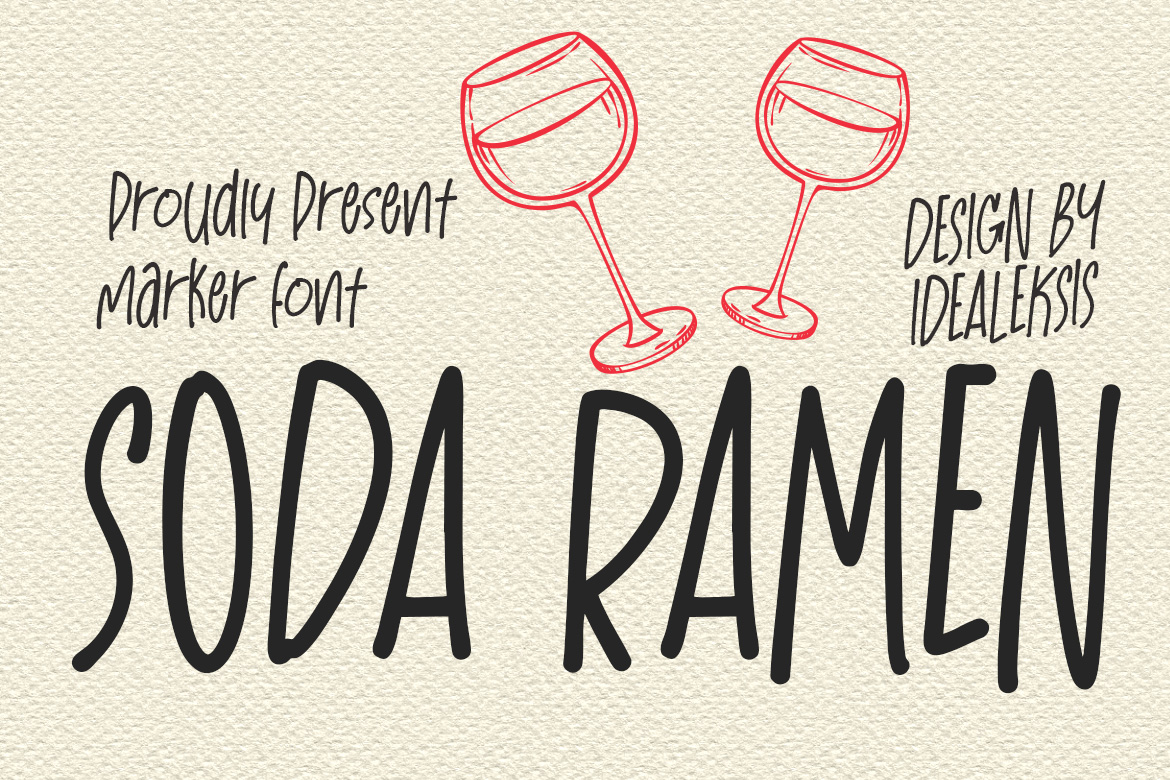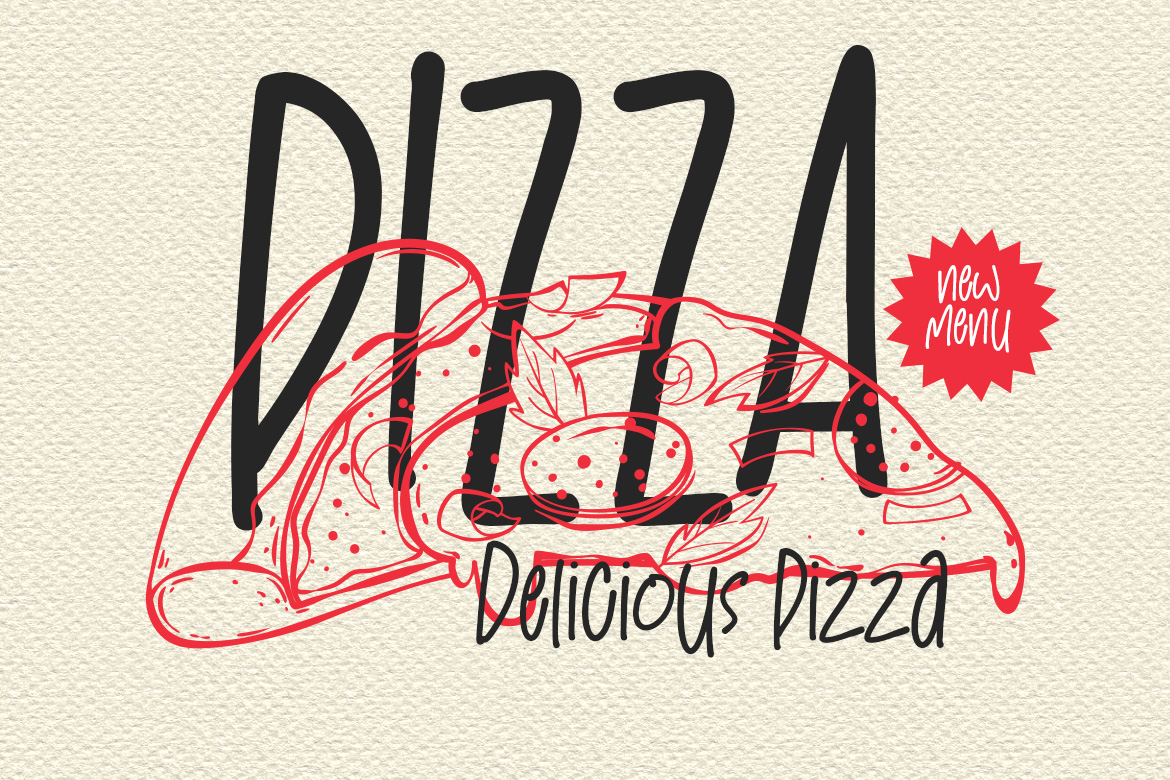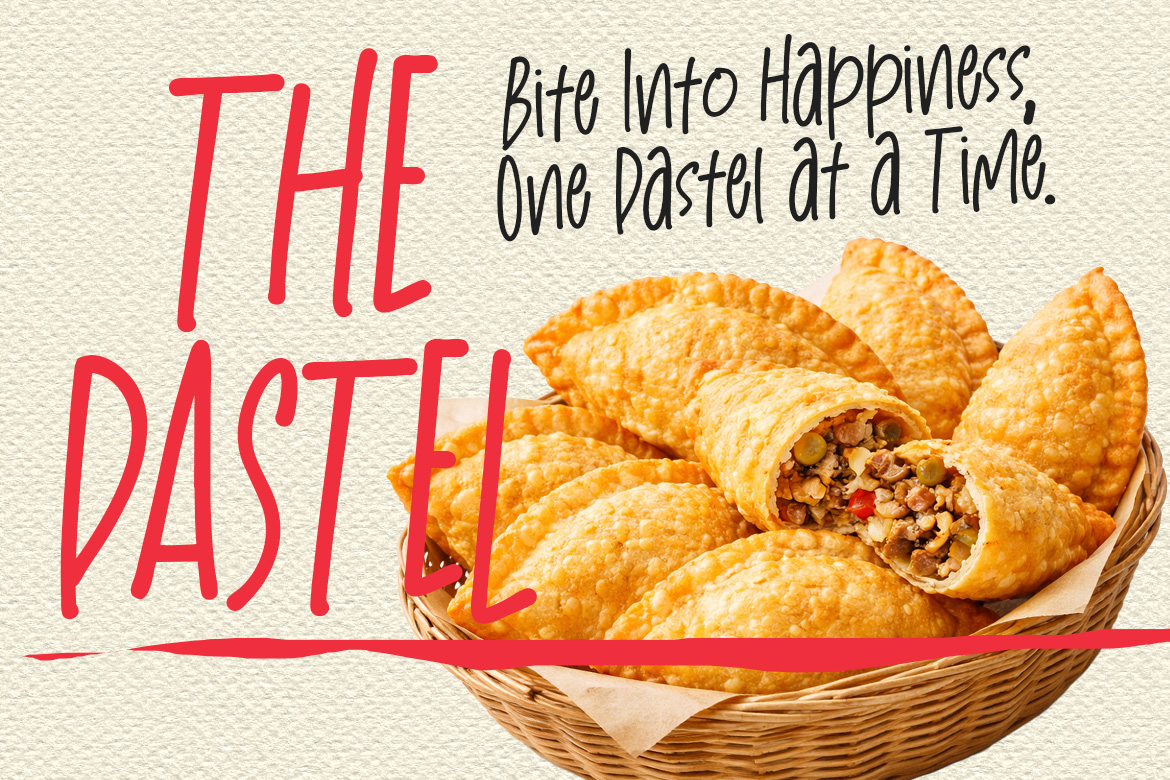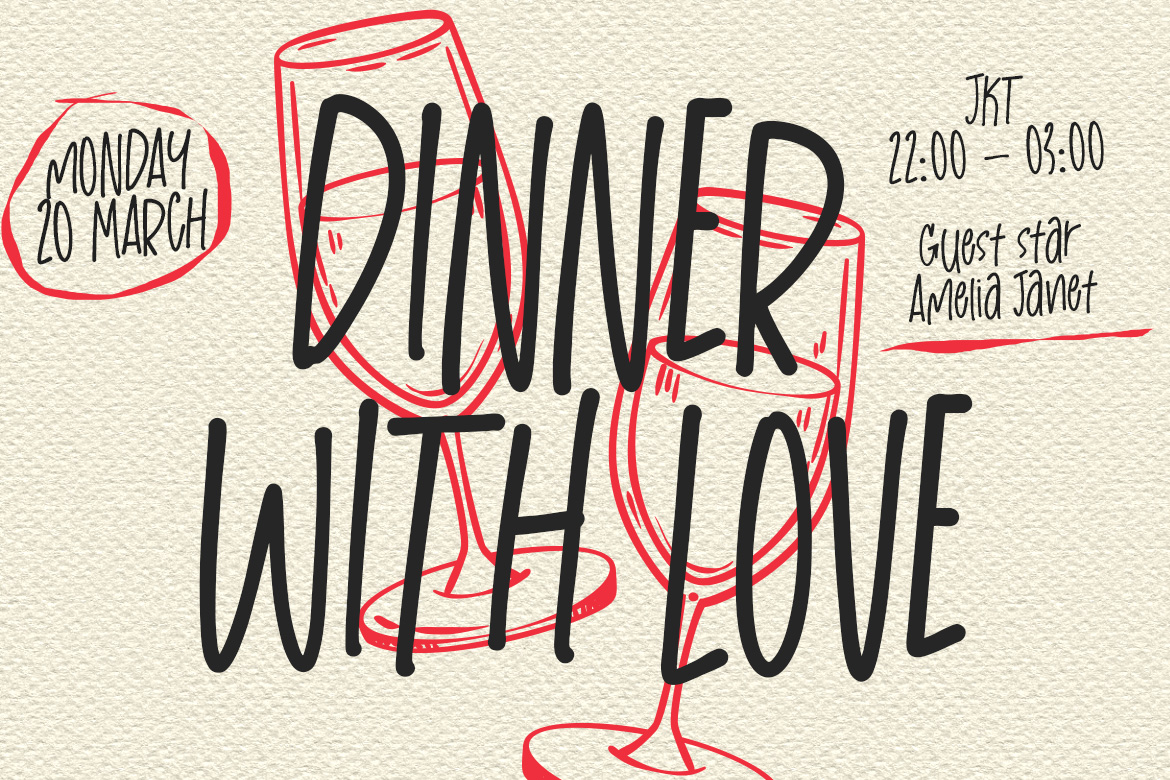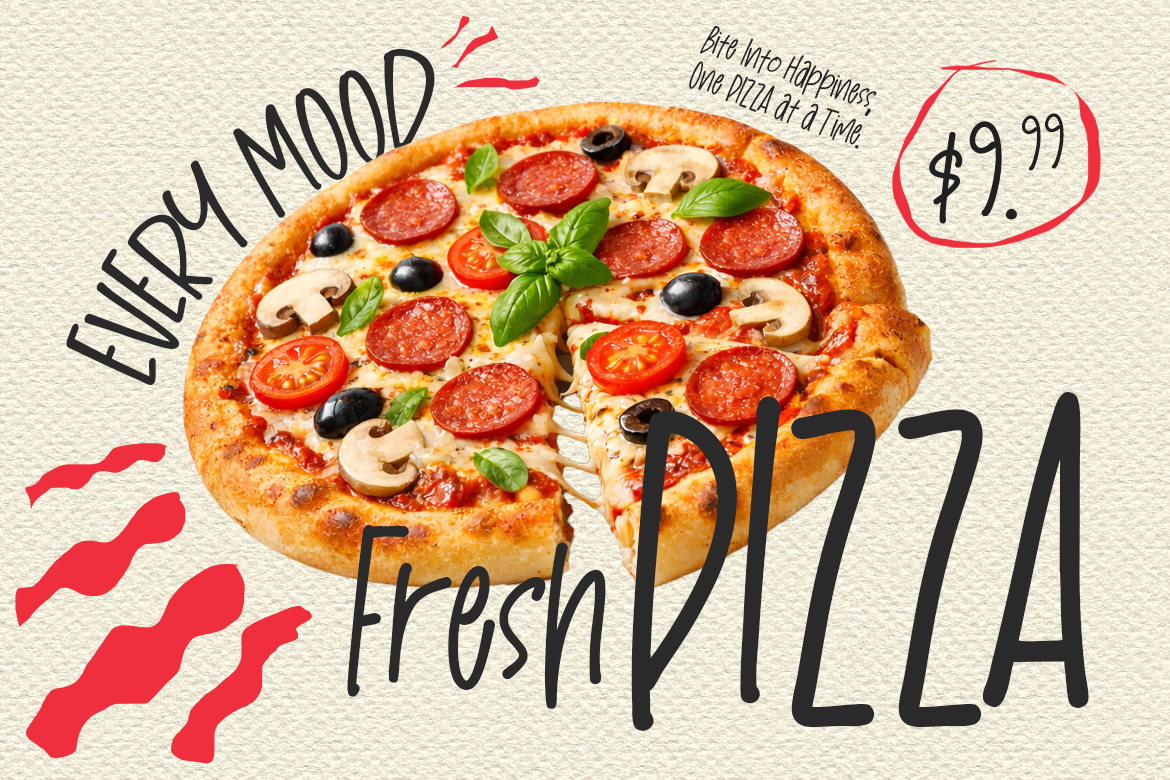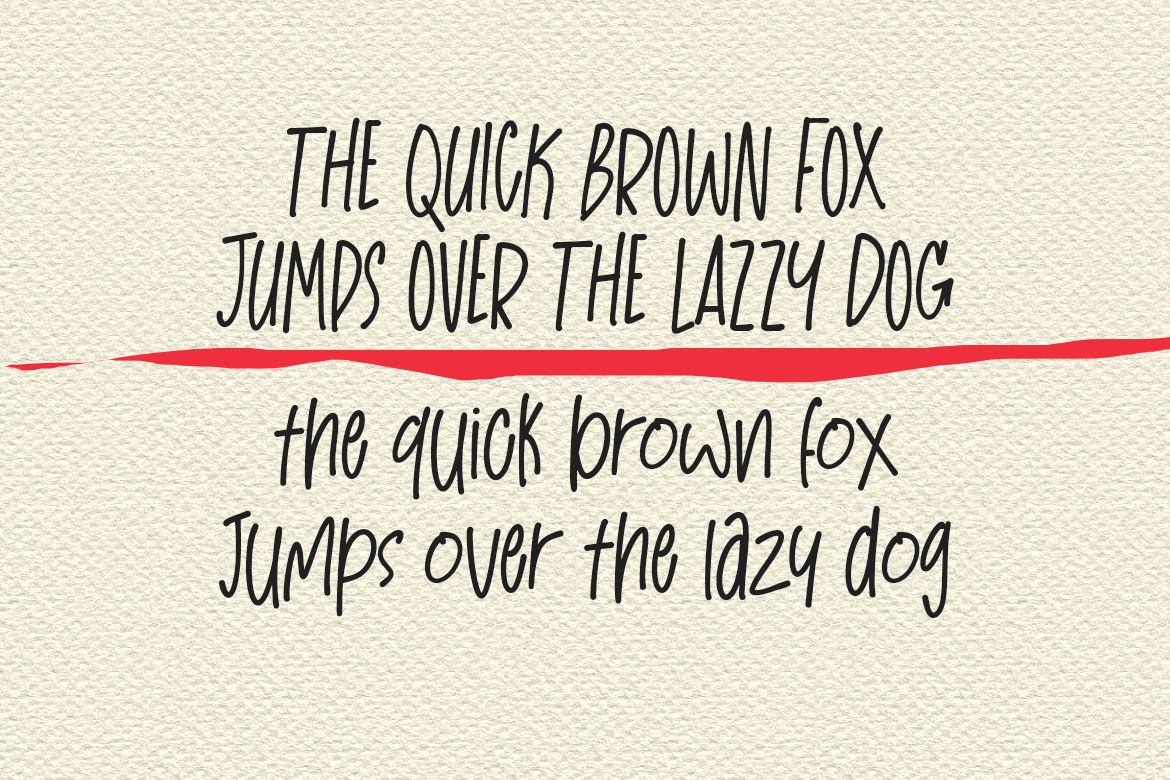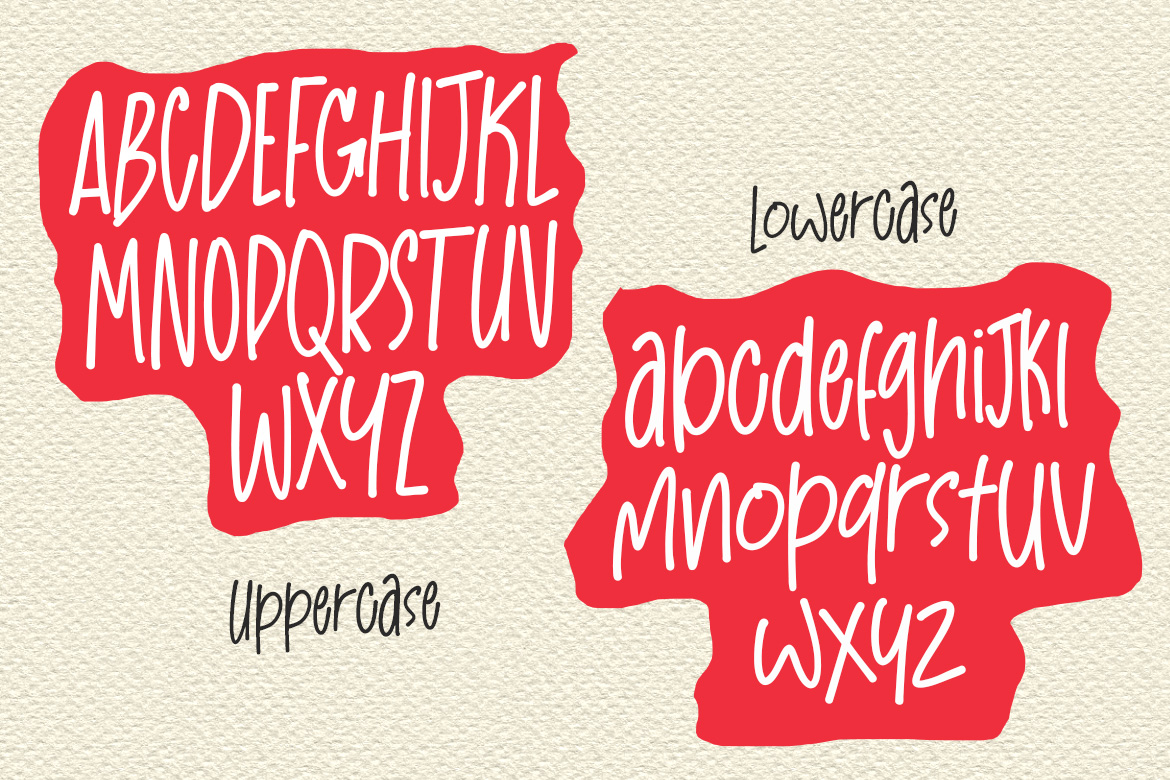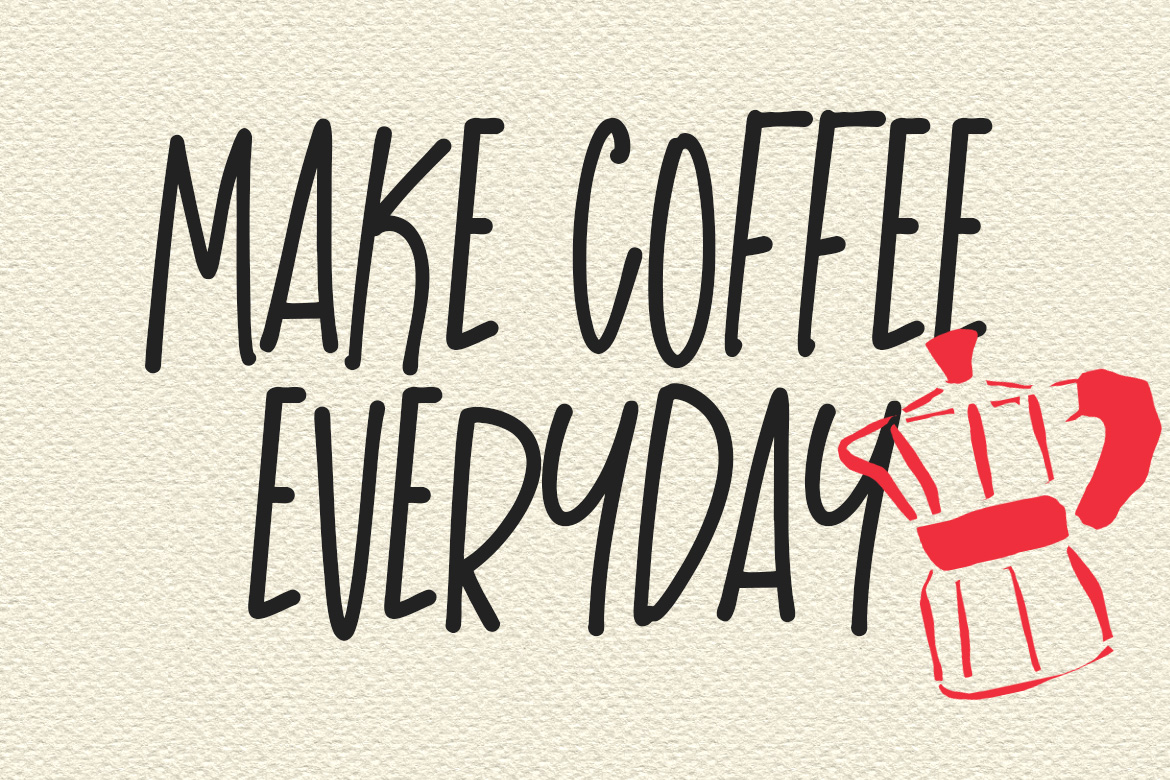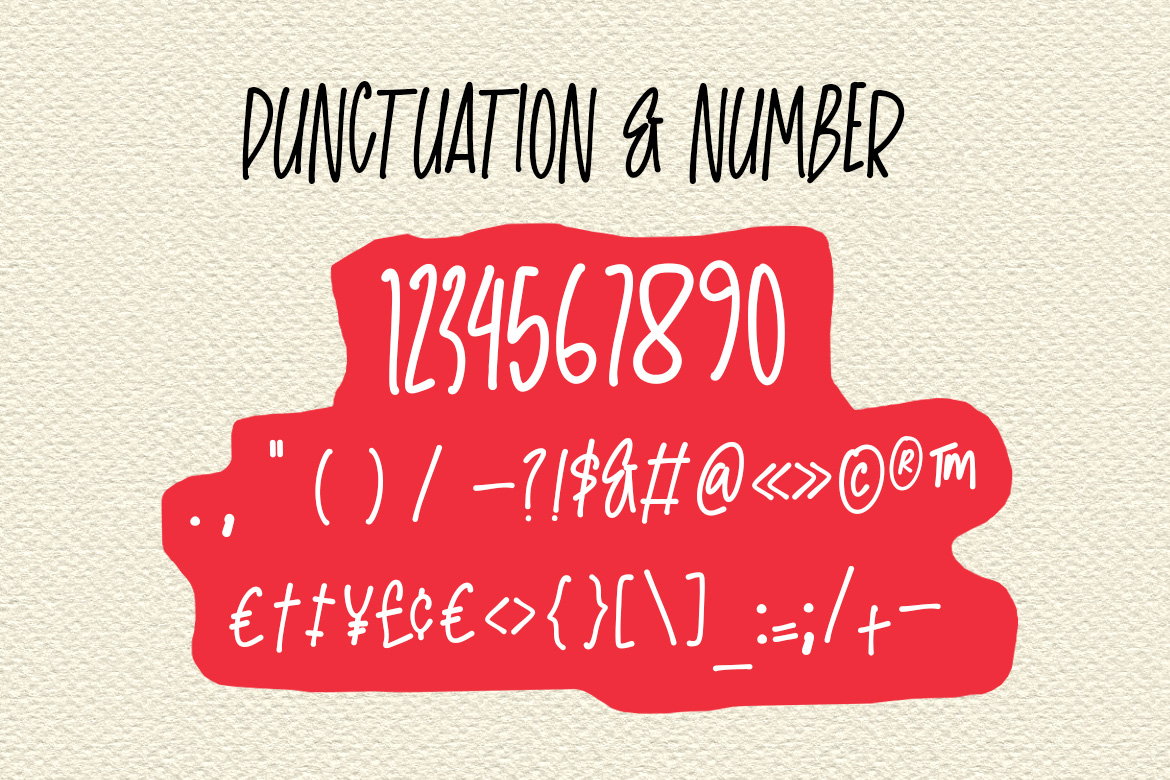
This font features tall, narrow letterforms with a distinct hand-drawn marker aesthetic. The strokes maintain a consistent medium weight with soft, rounded terminals that evoke a friendly and approachable vibe. Its slightly irregular baseline and organic curves suggest a spontaneous, felt-tip pen style, making it ideal for casual branding, menu designs, and social media graphics where a personal touch is desired. The vertical emphasis and condensed width allow for impactful headings without occupying excessive horizontal space.
PERFECT FOR
- Bakery and café branding
- Food and beverage logos
- Restaurant menus and signage
- Coffee shop and donut shop designs
- Food packaging and labels
- Social media food promotions
- Kitchen-themed posters and prints
- Culinary blogs and recipe graphics